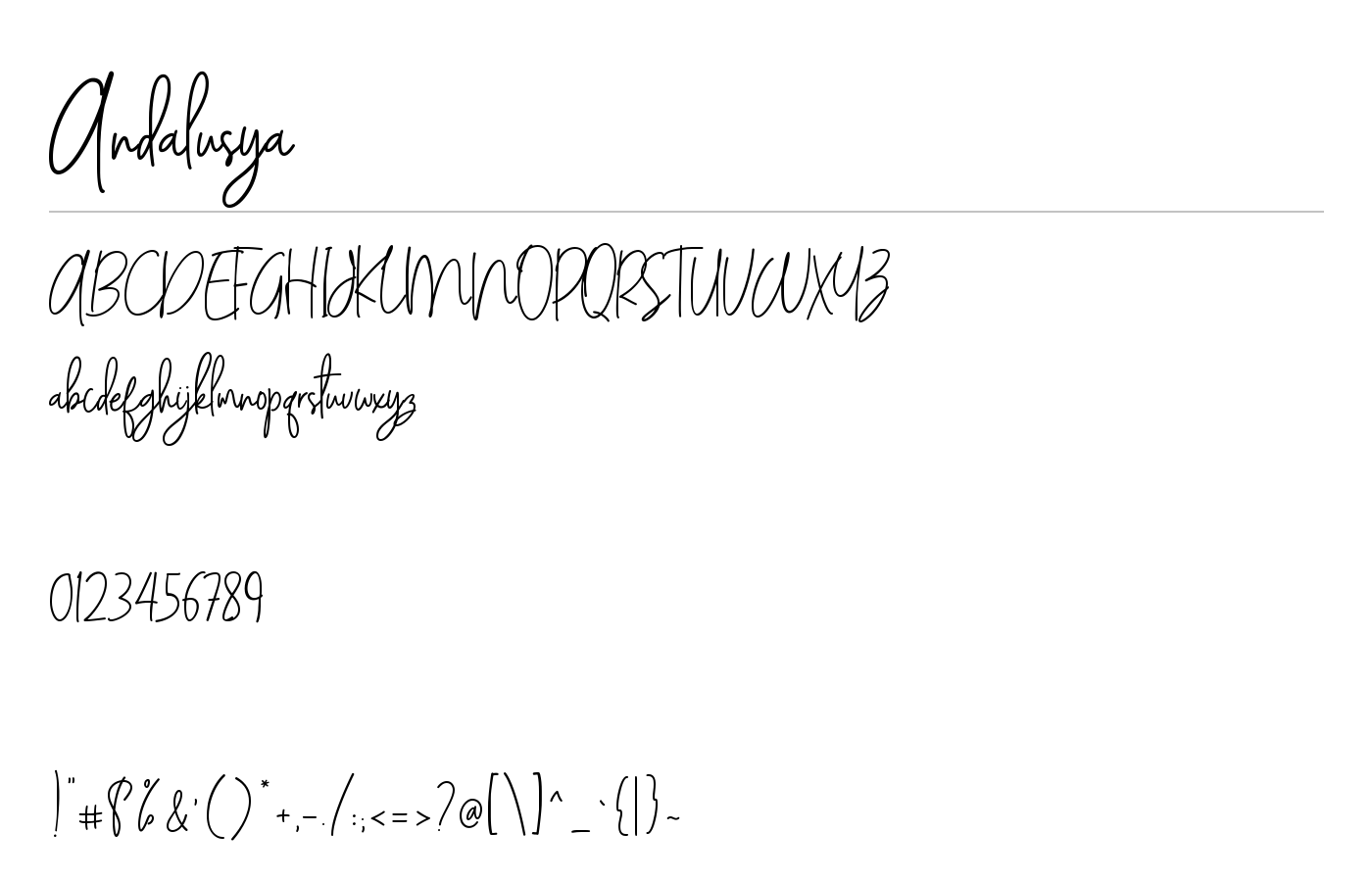
Andalusya is a delicate and elegant handwritten script font with a light weight and tall, narrow letterforms that convey a sense of grace and sophistication. Its slender strokes and slightly irregular shapes give it a natural, personal touch, making it ideal for branding, invitations, and creative projects that seek a stylish yet approachable feel. This font works best in display use where its airy, refined character can shine, adding a modern and artistic flair.
Andalusya Font
About Andalusya Font
| Font family | Andalusya Font |
| Designer | Nasruddin |